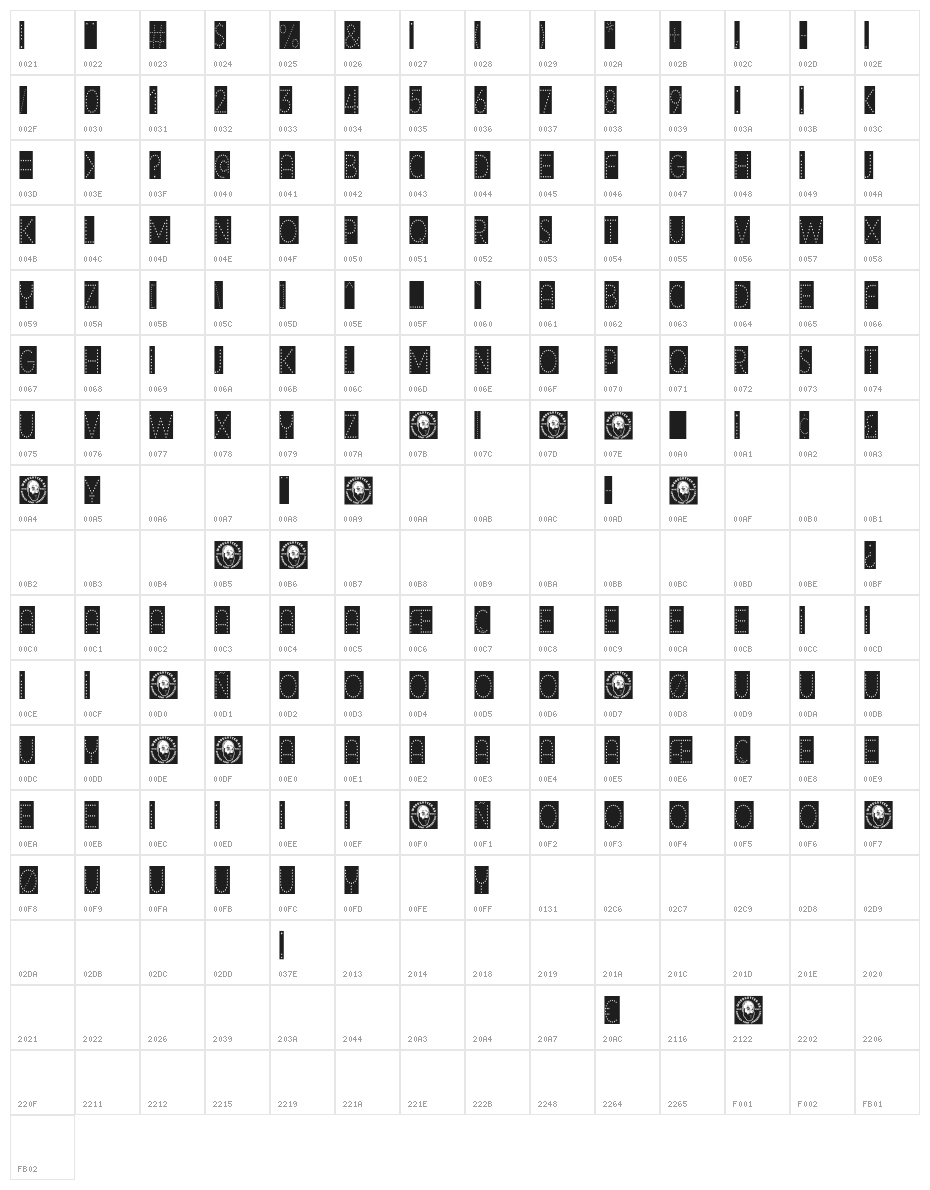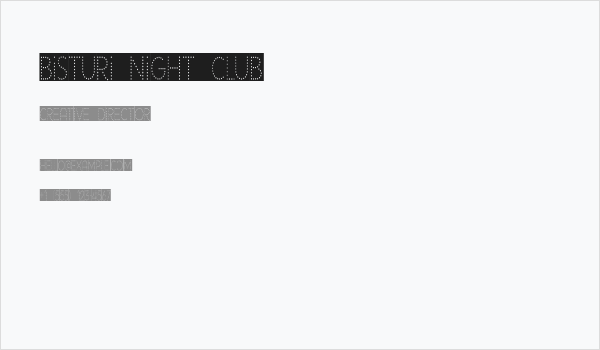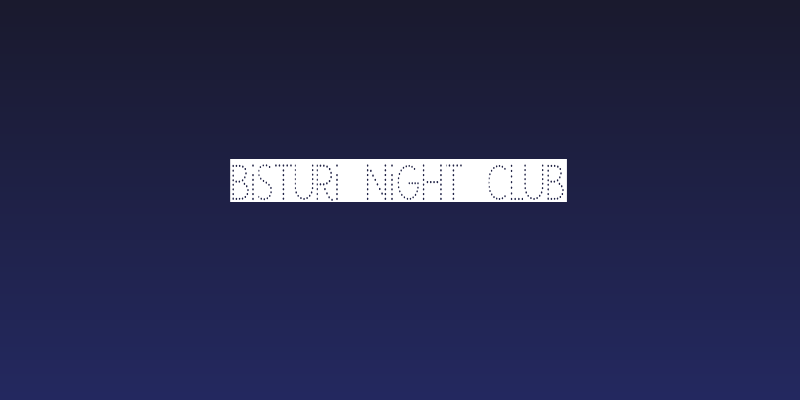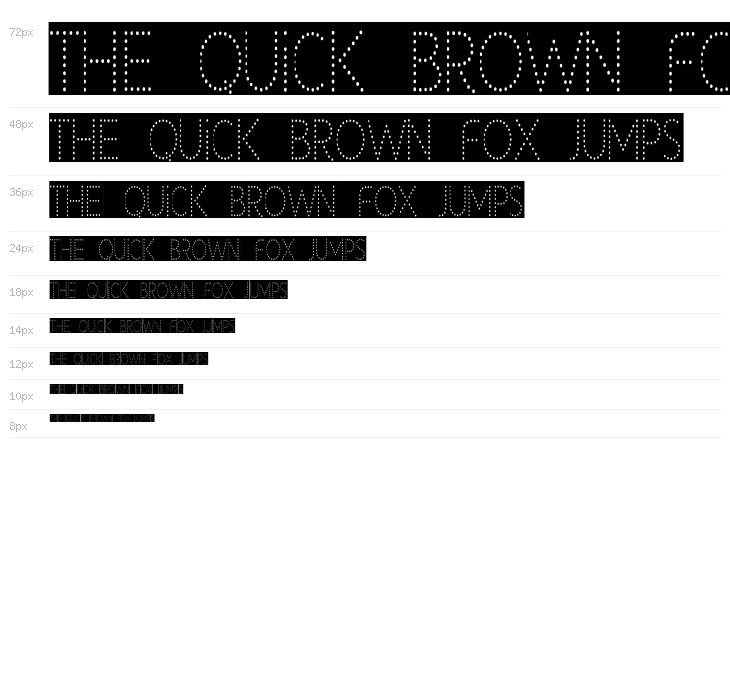
bisturi night club Font
bisturi night club Description
This font features a unique dotted design, where each character is composed of evenly spaced dots forming the outlines of letters and numbers. The style is reminiscent of marquee lights or retro signage, giving it a playful and eye-catching appearance. The uppercase and lowercase letters maintain a consistent height and width, ensuring uniformity across the typeface. The numbers and special characters are crafted with the same dotted pattern, providing a cohesive look. This font is ideal for projects that require a bold and decorative touch, such as event posters, nightclub promotions, or vintage-themed designs.
| Proposed Projects | Event posters, nightclub promotions, vintage-themed designs, signage. |